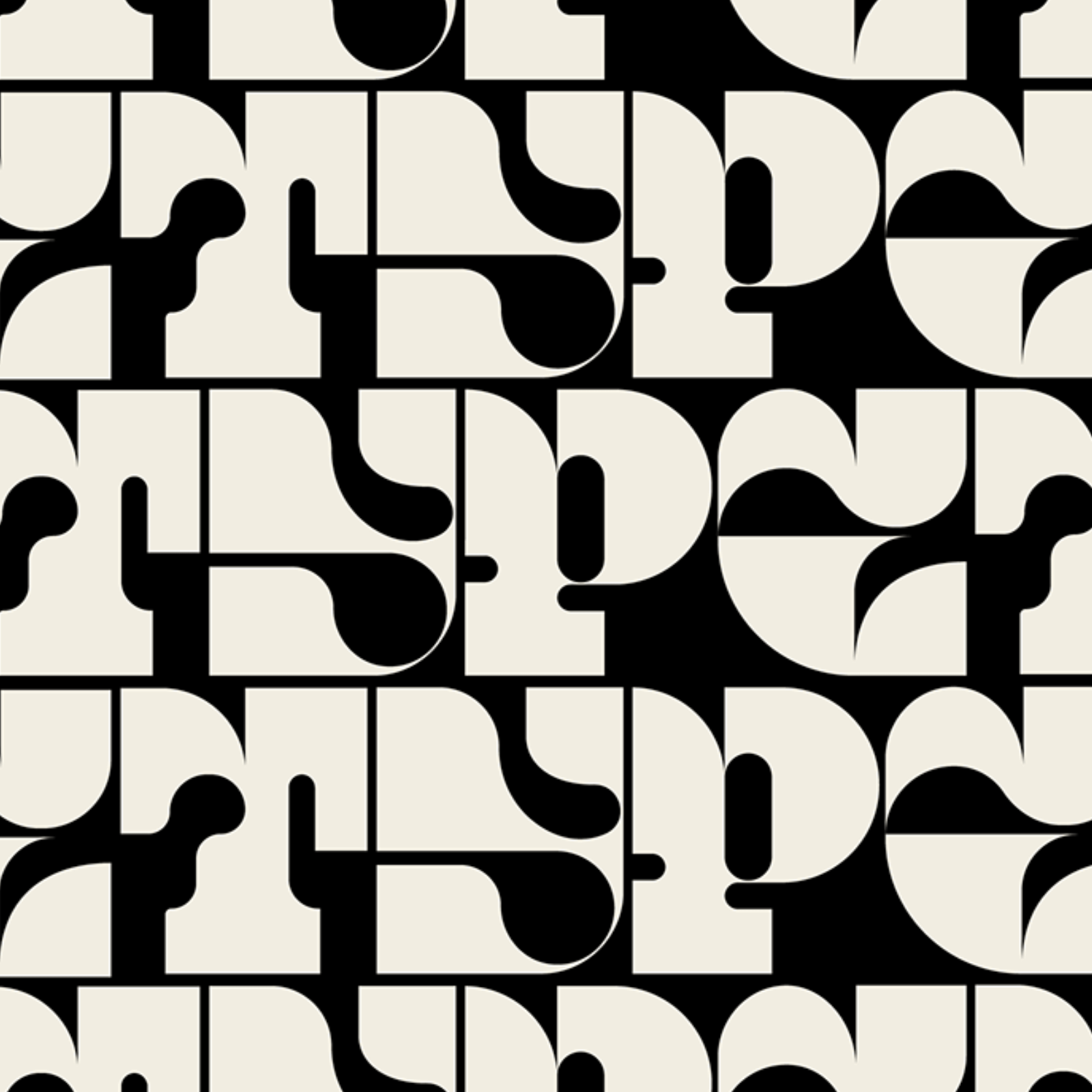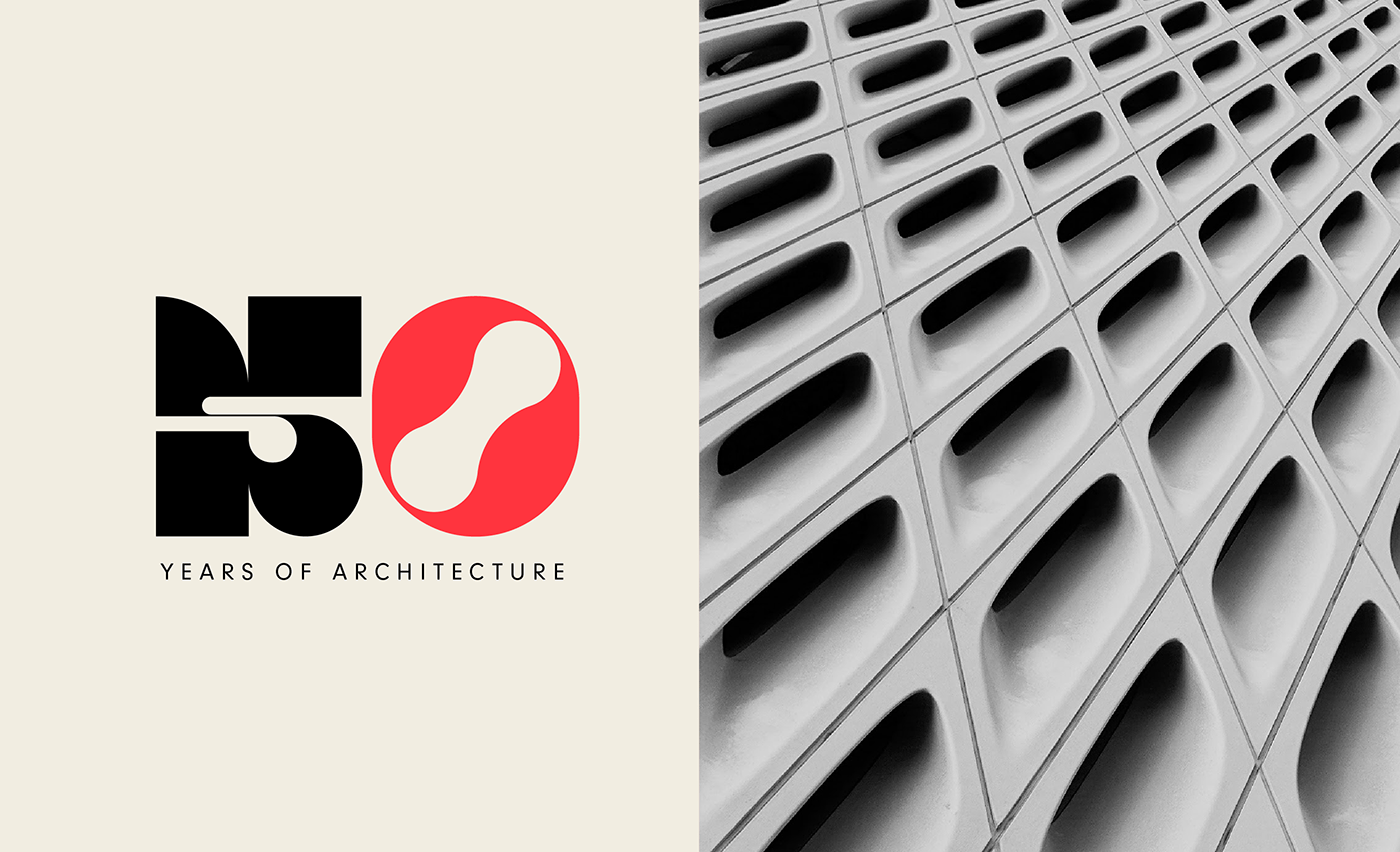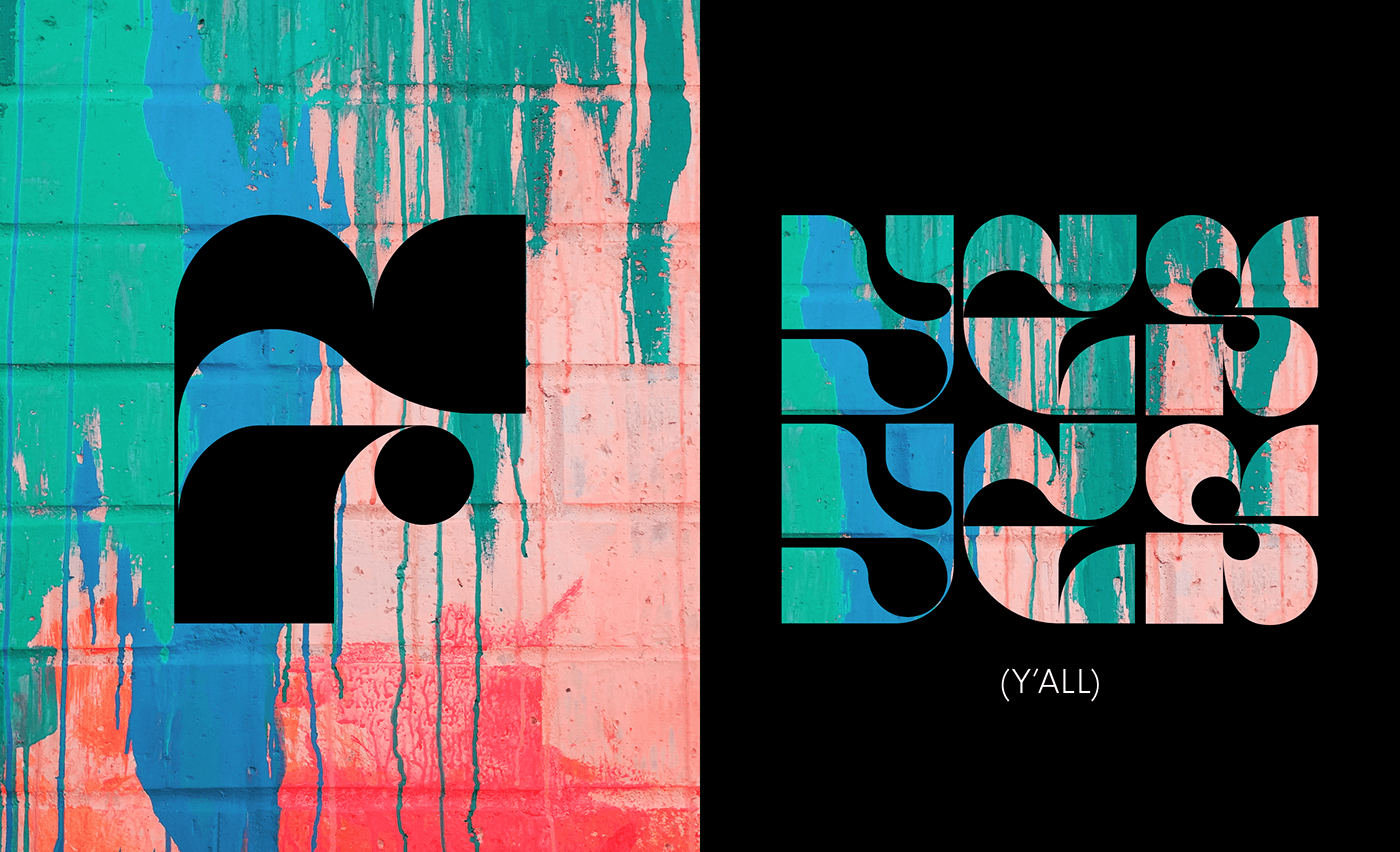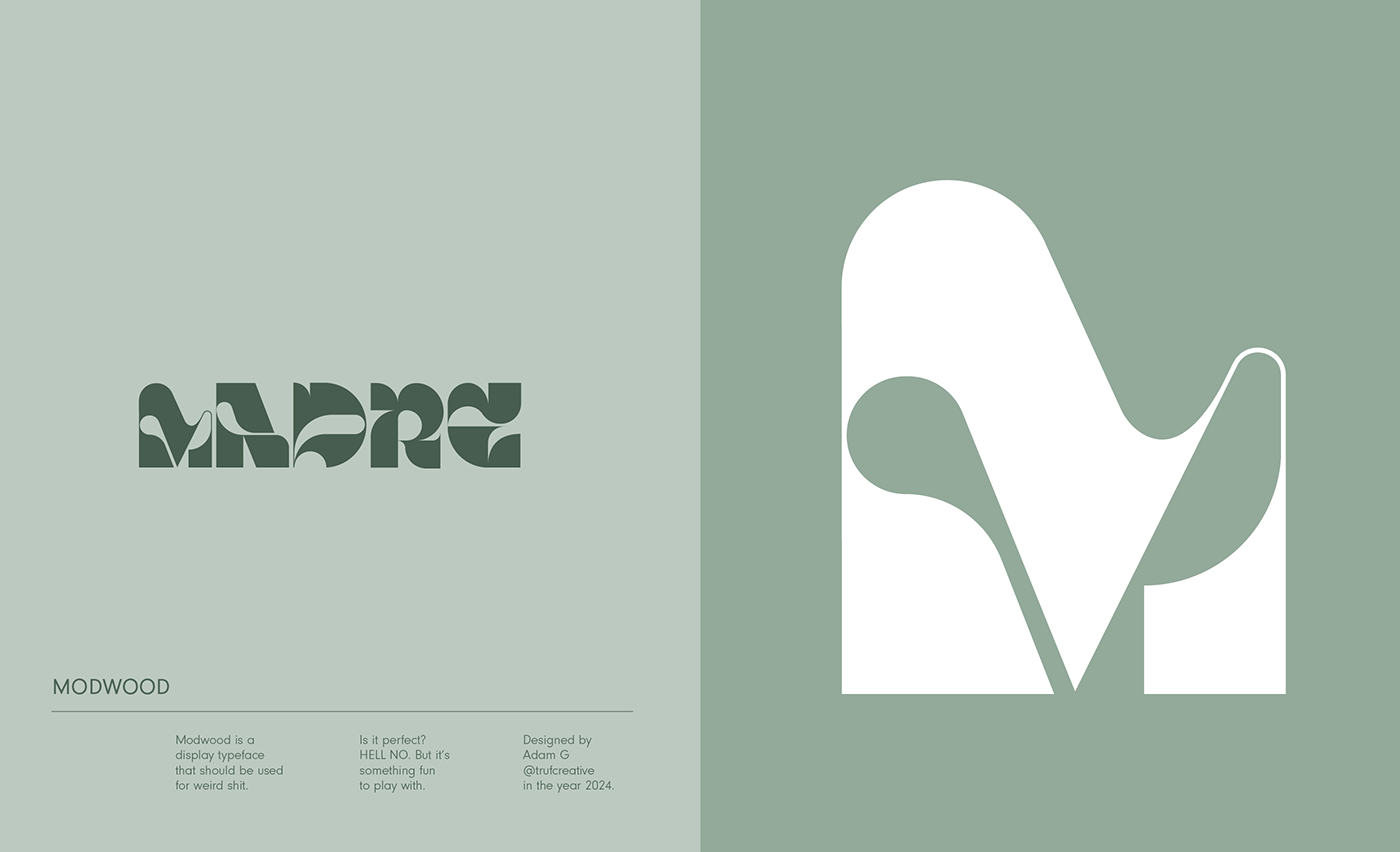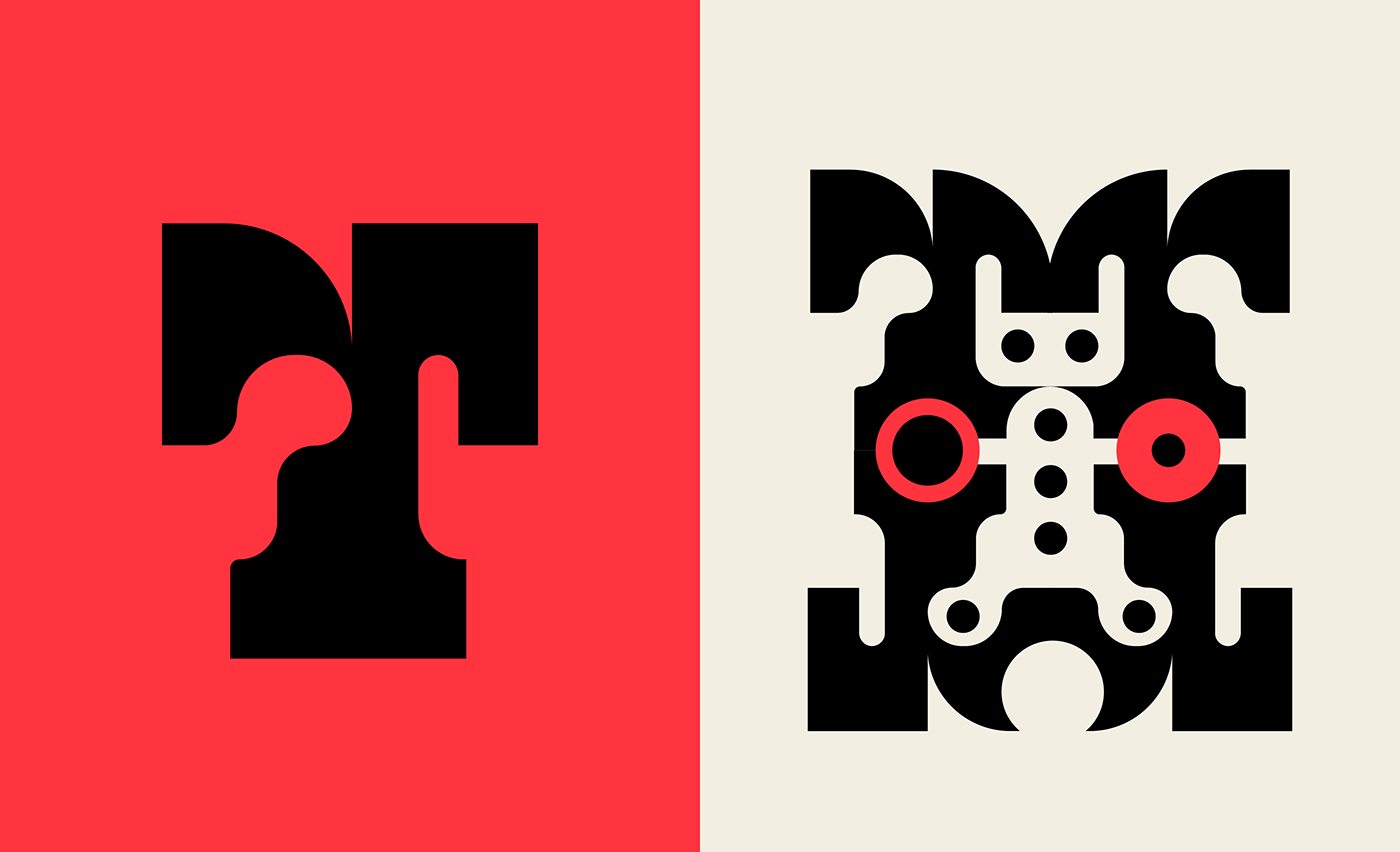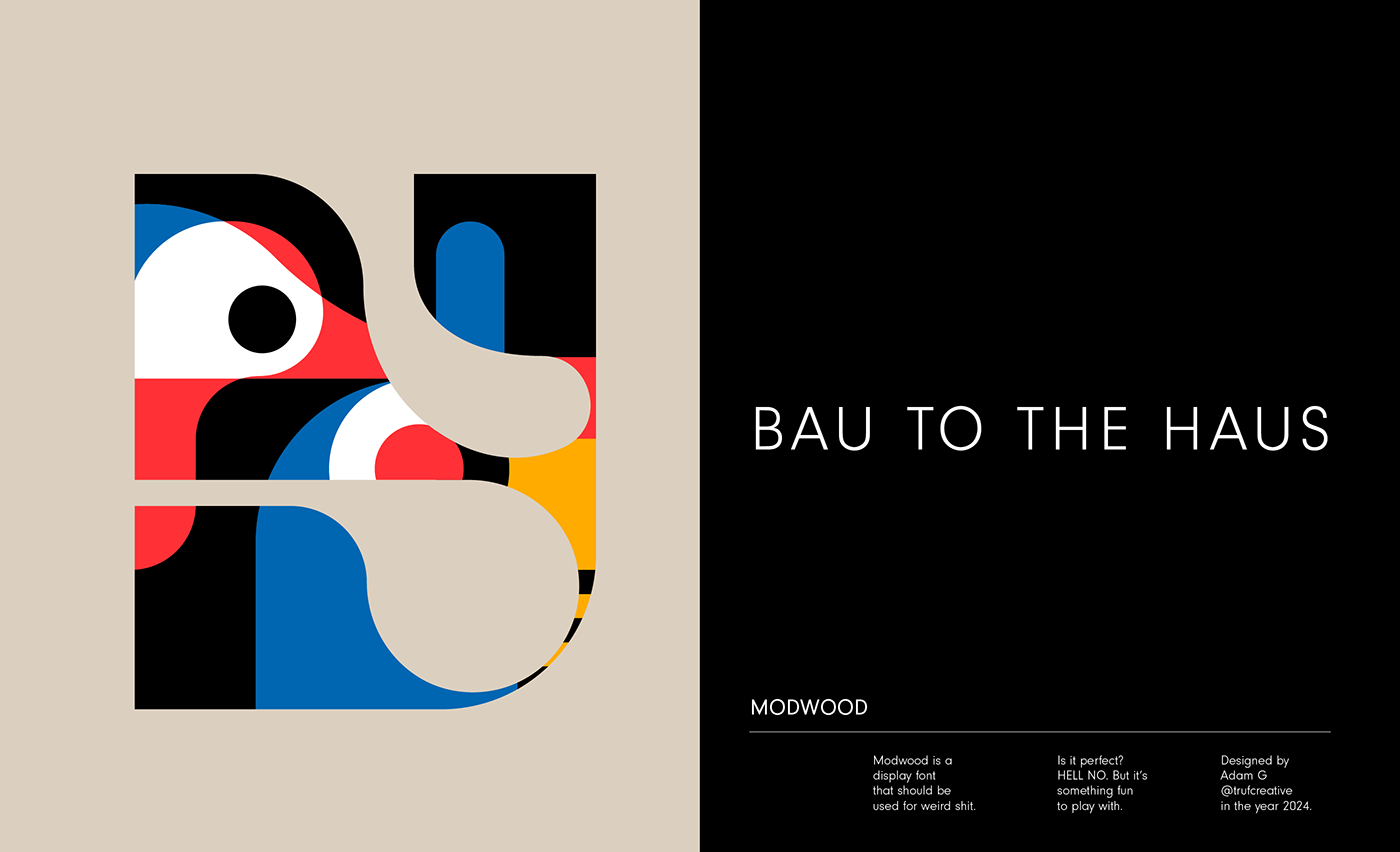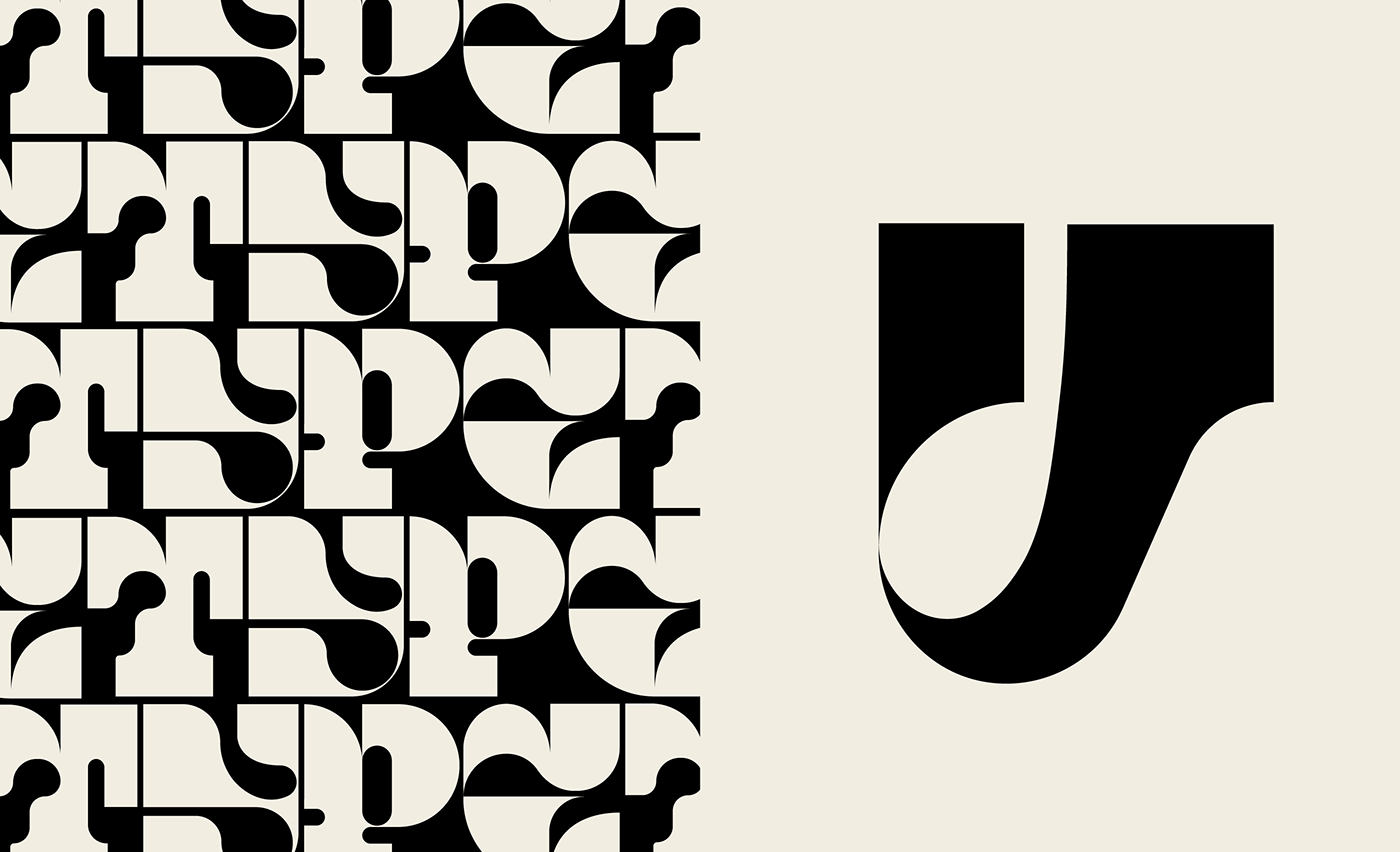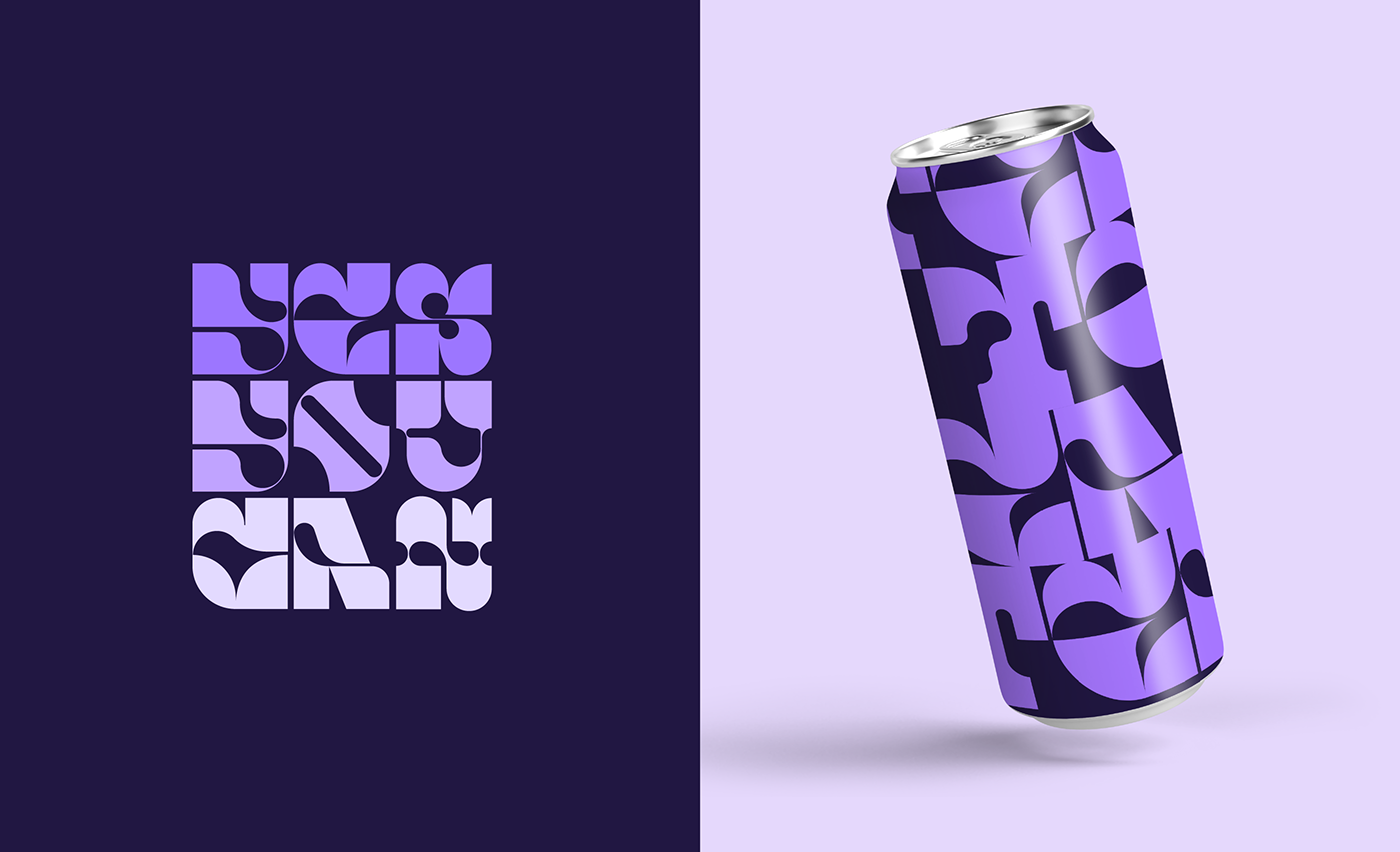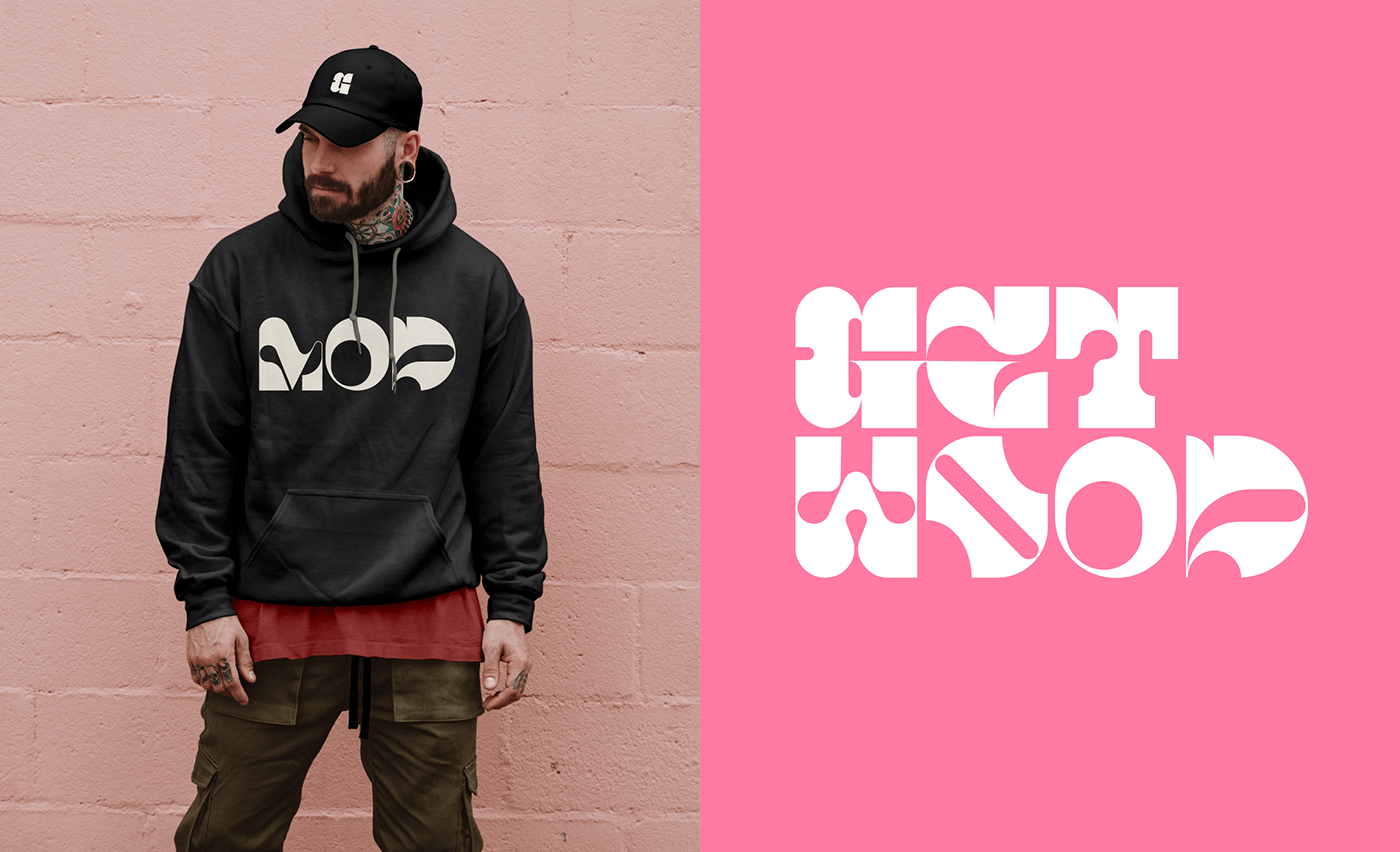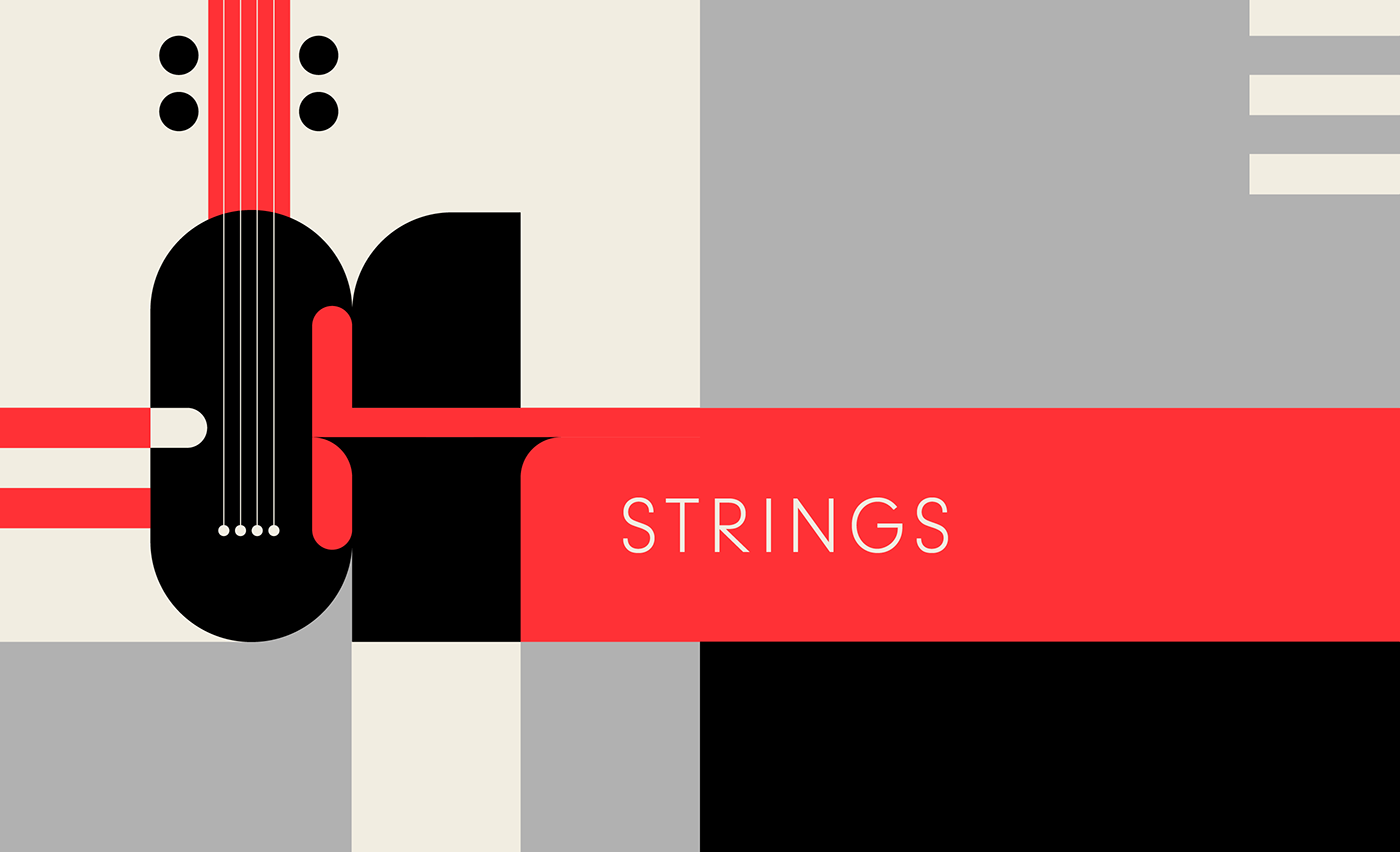
Modwood Font: A Versatile and Playful Typography
Discover Modwood, a versatile and playful display font by TRÜF Creative. This eclectic typeface blends modern aesthetics with geometric shapes and organic textures. Explore its typography inspiration and use cases.
TRÜF Creative, a design studio known for its innovative typography, has recently released Modwood, a display font that defies categorization. This eclectic typeface seamlessly blends modern aesthetics with geometric shapes, organic textures, and a touch of playful whimsy.
Modwood's versatility is its standout feature. It can adapt to a wide range of design applications, effortlessly shifting its tone from serious and rebellious to artsy and even tribal. This flexibility is achieved through a carefully curated set of glyphs and alternatives, including a few hidden "easter eggs" for those who enjoy exploring the finer details.
Typography Inspiration and Use Cases
TRÜF Creative's design philosophy shines through in Modwood's unique character. The font's geometric foundation provides structure and stability, while the organic elements introduce warmth and personality. This fusion results in a typeface that feels both contemporary and timeless.
Modwood is well-suited for projects that demand a strong visual identity. Its bold forms and distinctive details make it an excellent choice for headlines, posters, and other display applications. The font's playful nature also lends itself to more creative endeavors, such as branding for children's products or packaging for artisanal goods.
Exploring Modwood's Potential
To fully appreciate Modwood's versatility, designers are encouraged to experiment with its various glyphs and alternatives. The font's glyphs palette is a treasure trove of unique characters, allowing for endless customization and personalization for your typography dreams.
Whether you're looking to add a touch of whimsy to your next project or create a bold and memorable visual statement, Modwood is a font that deserves your attention. Its eclectic charm and boundless adaptability make it a valuable addition to any designer's toolkit.